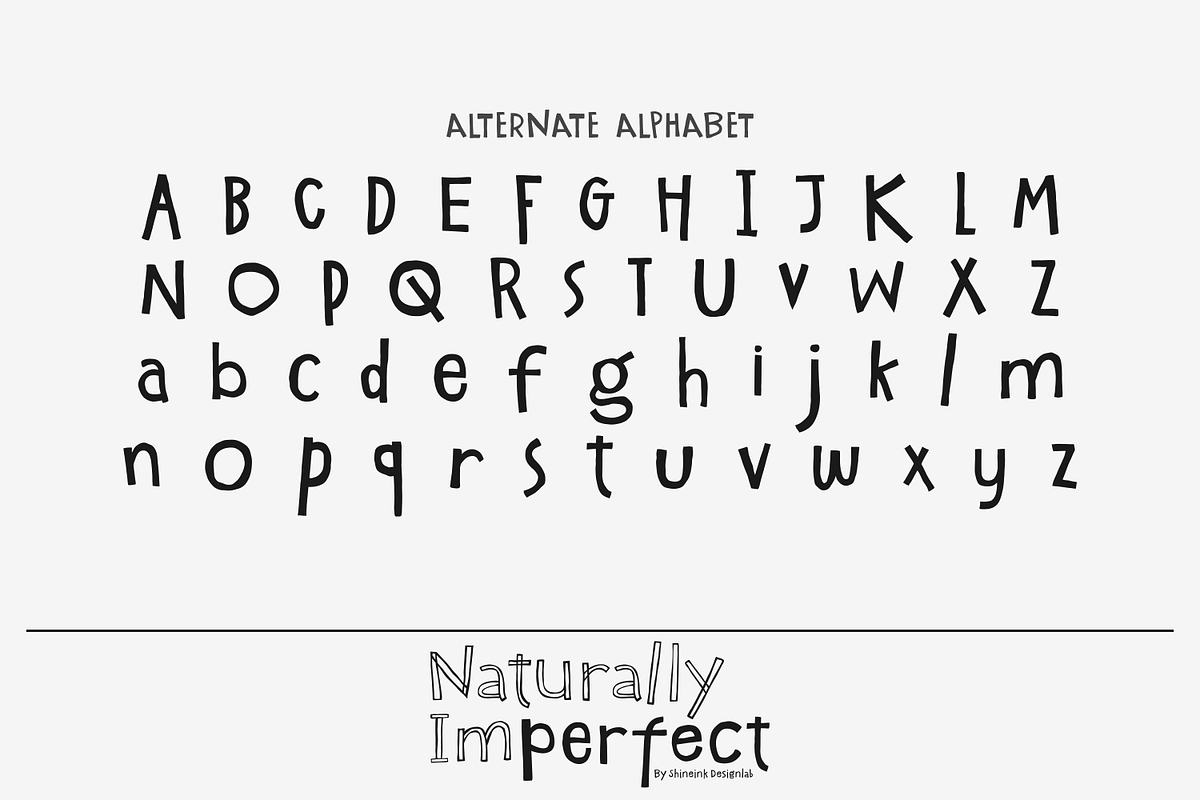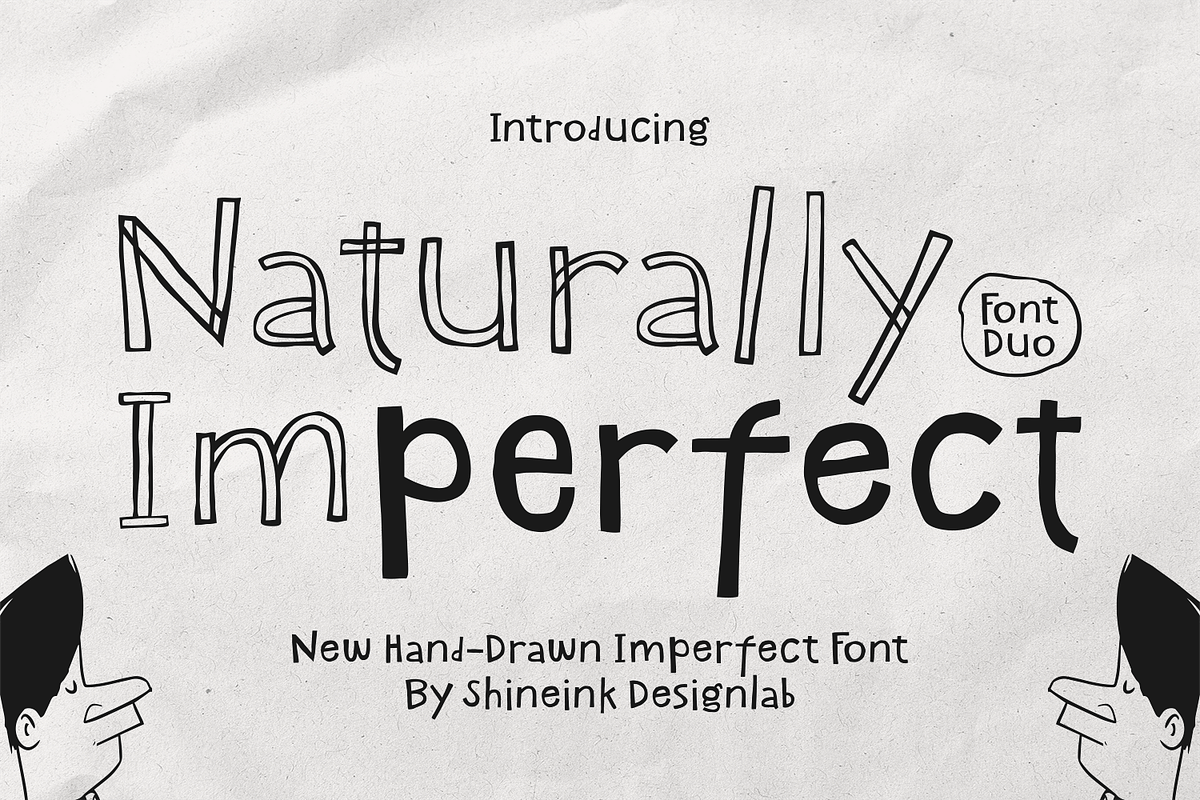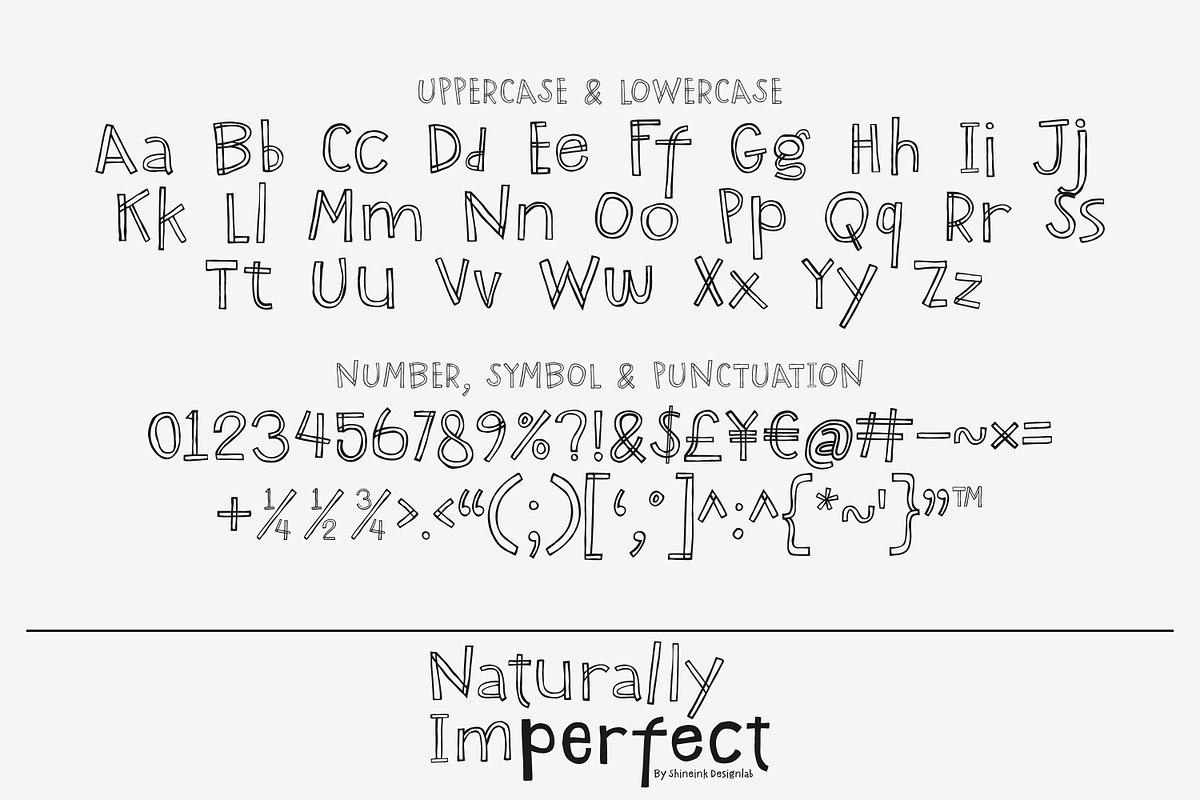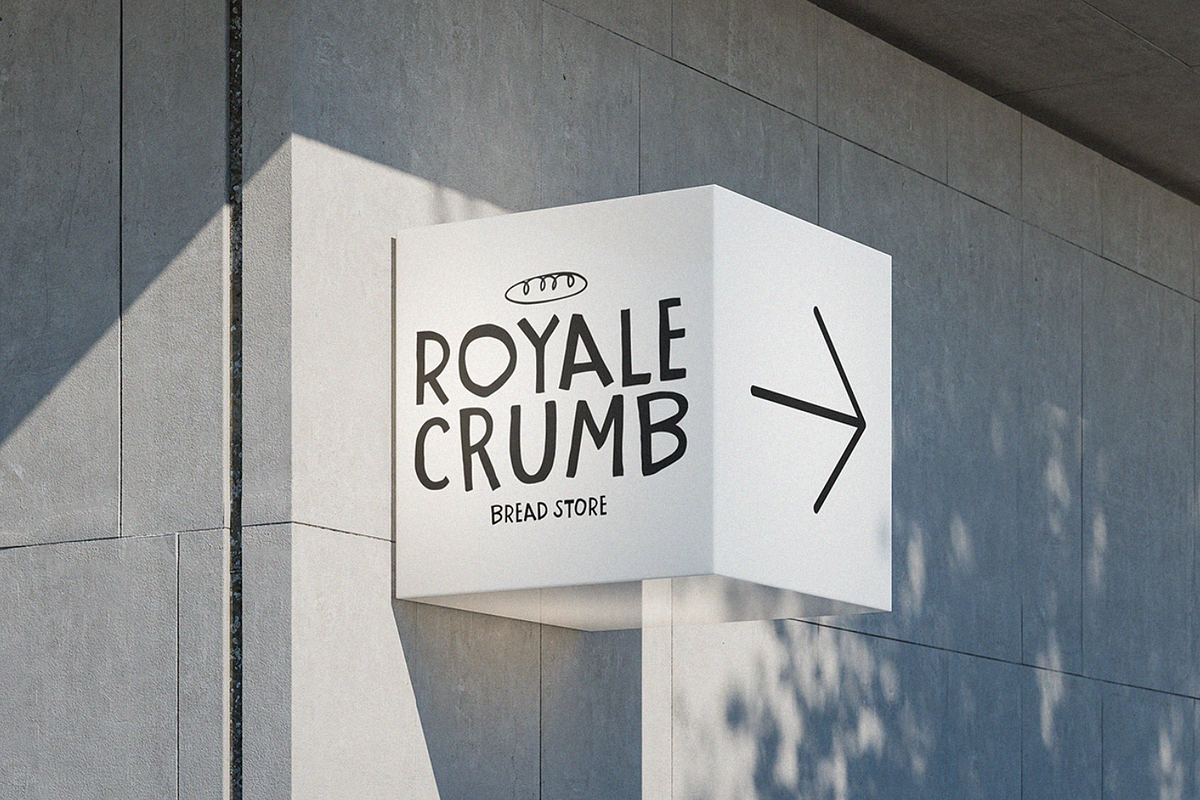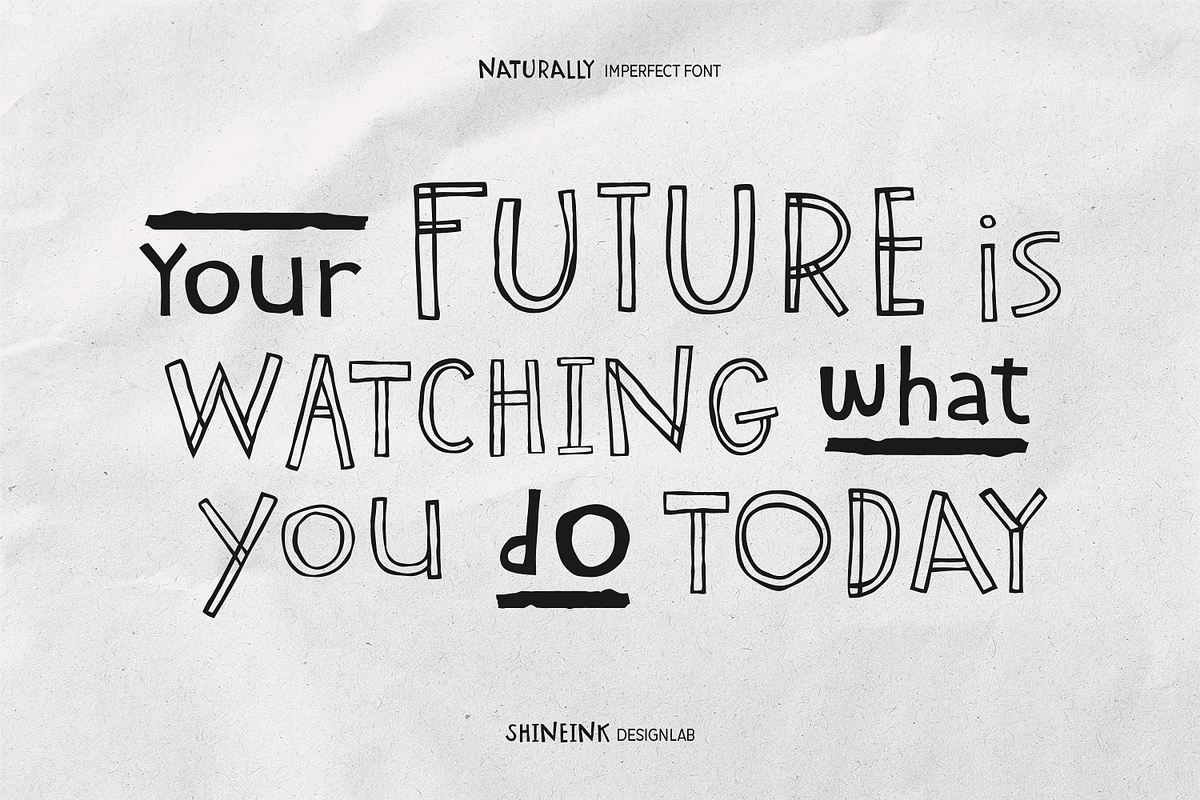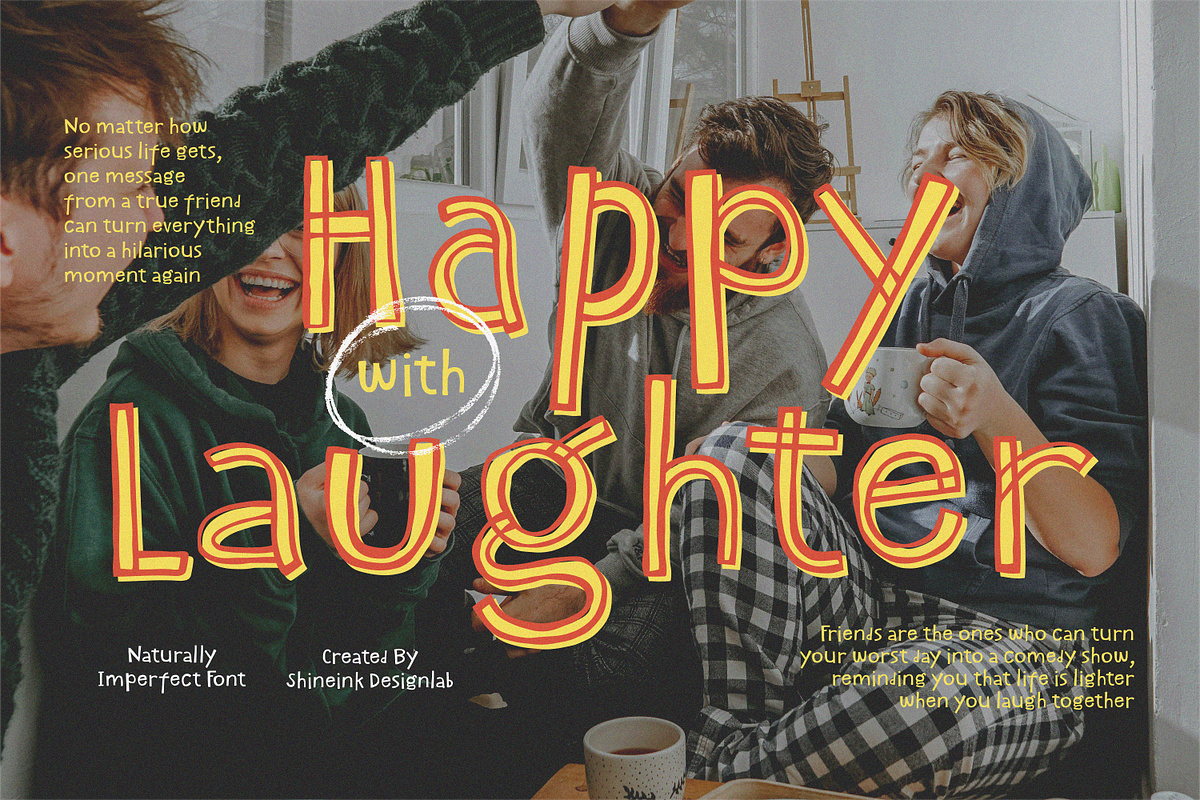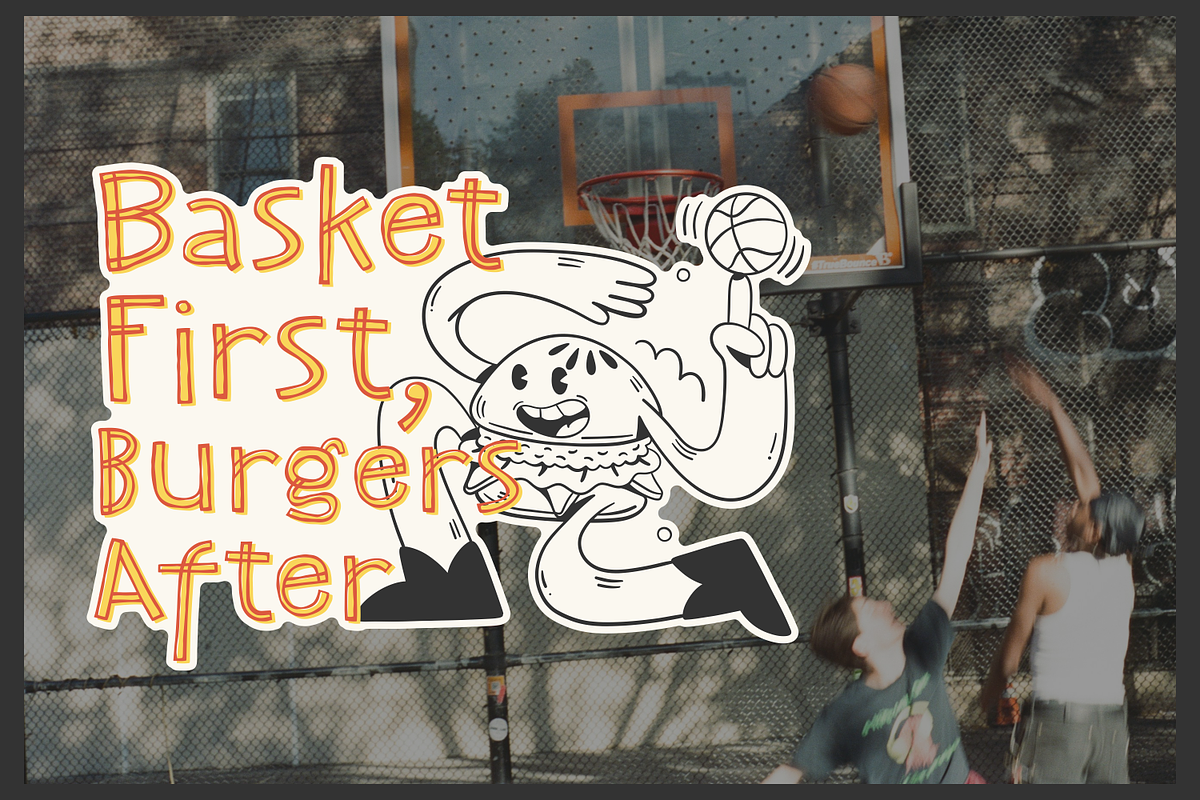
Naturally Imperfect – HandDrawn Font
I'm present to you, Hand-Drawn Font Duo, called Naturally Imperfect!
Naturally Imperfect is a playful hand-drawn font duo that celebrates raw creativity, organic lines, and beautifully imperfect details. Designed to feel human, warm, and expressive, this font brings a natural charm that instantly adds personality to your designs.
This duo combines an outlined hand-sketched style with a bold solid companion, giving you the freedom to mix, match, and create eye-catching typography with effortless contrast. Every letter is crafted with intentional imperfections to create an authentic handmade look—perfect for modern creatives who want their work to feel real, honest, and full of character.
Naturally Imperfect works beautifully for branding, logos, posters, quotes, social media, packaging, editorial layouts, children’s projects, and creative merchandise. Whether you’re designing something fun, artistic, or thoughtfully minimal, this font duo adapts naturally.
- Lowercase and Uppercase
- Multiple Languages Supported
- 2 Style Font
- Alternate Alphabet Uppercase & Lowercase